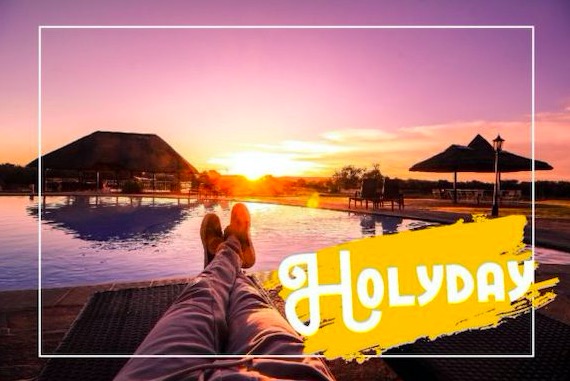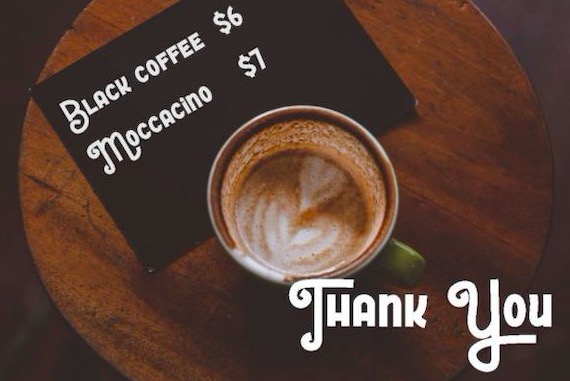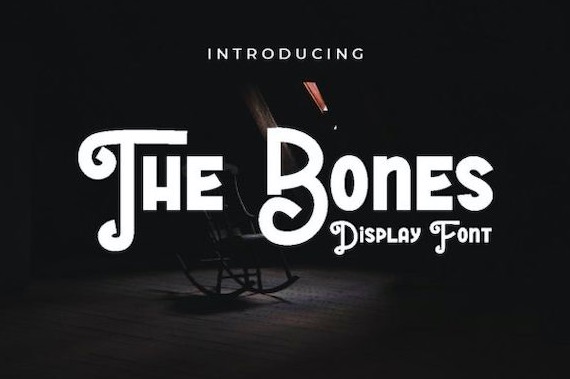
The Bones Font includes a friendly feel and a cool look in every design. It was created and shared by Pidco.art along with retro, versatile, and delicate style. With its gorgeous features, this display font will bring each of your creative ideas up to a new level.
The Bones Display Font